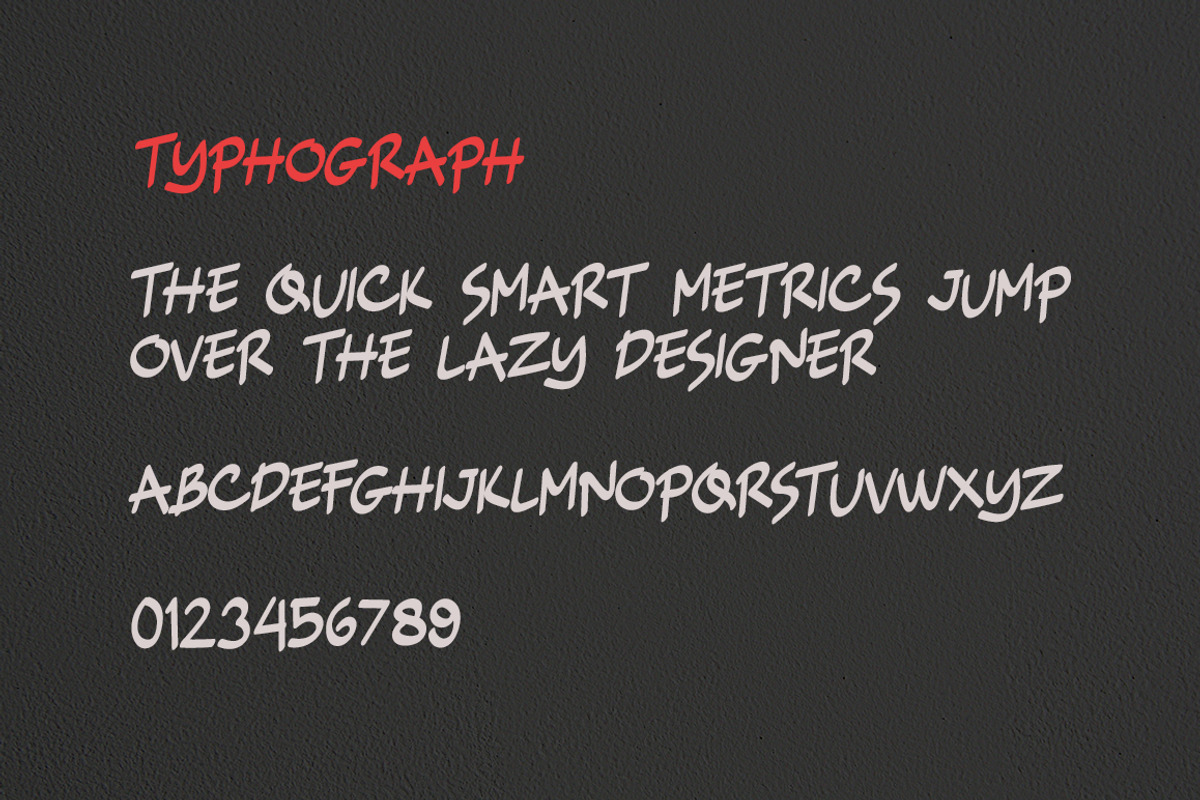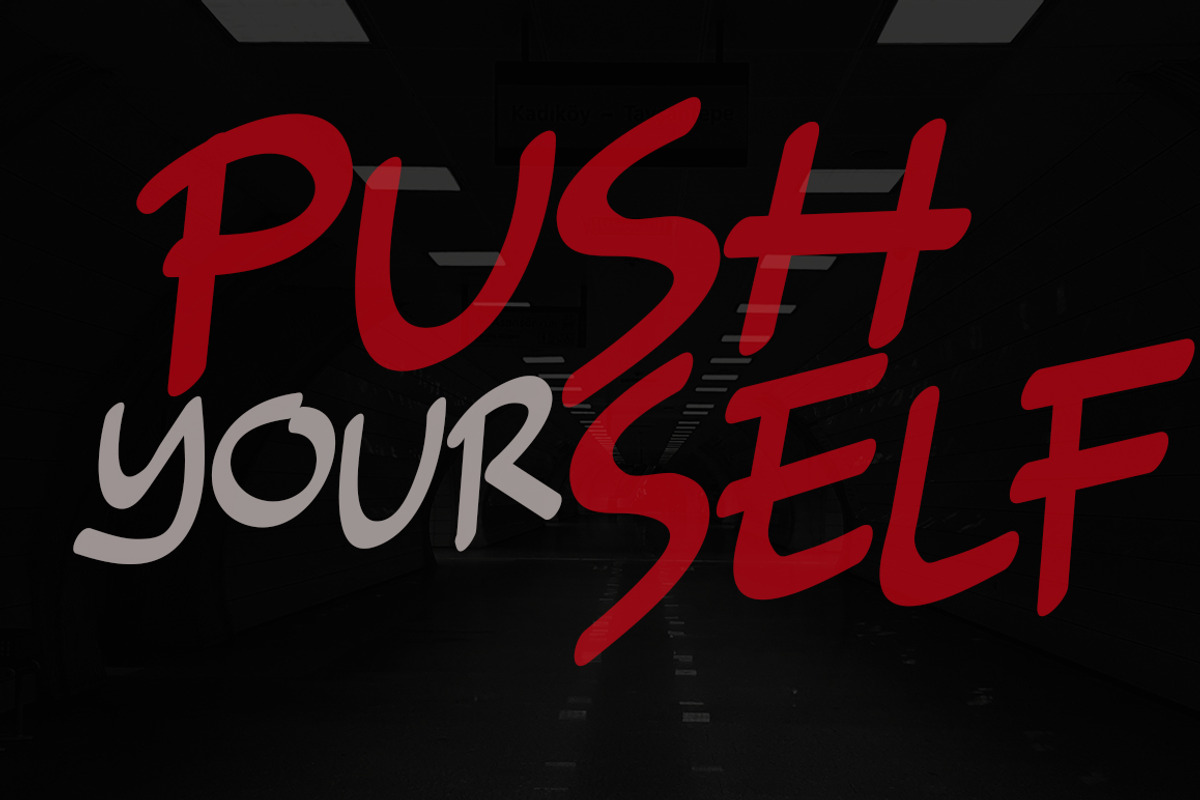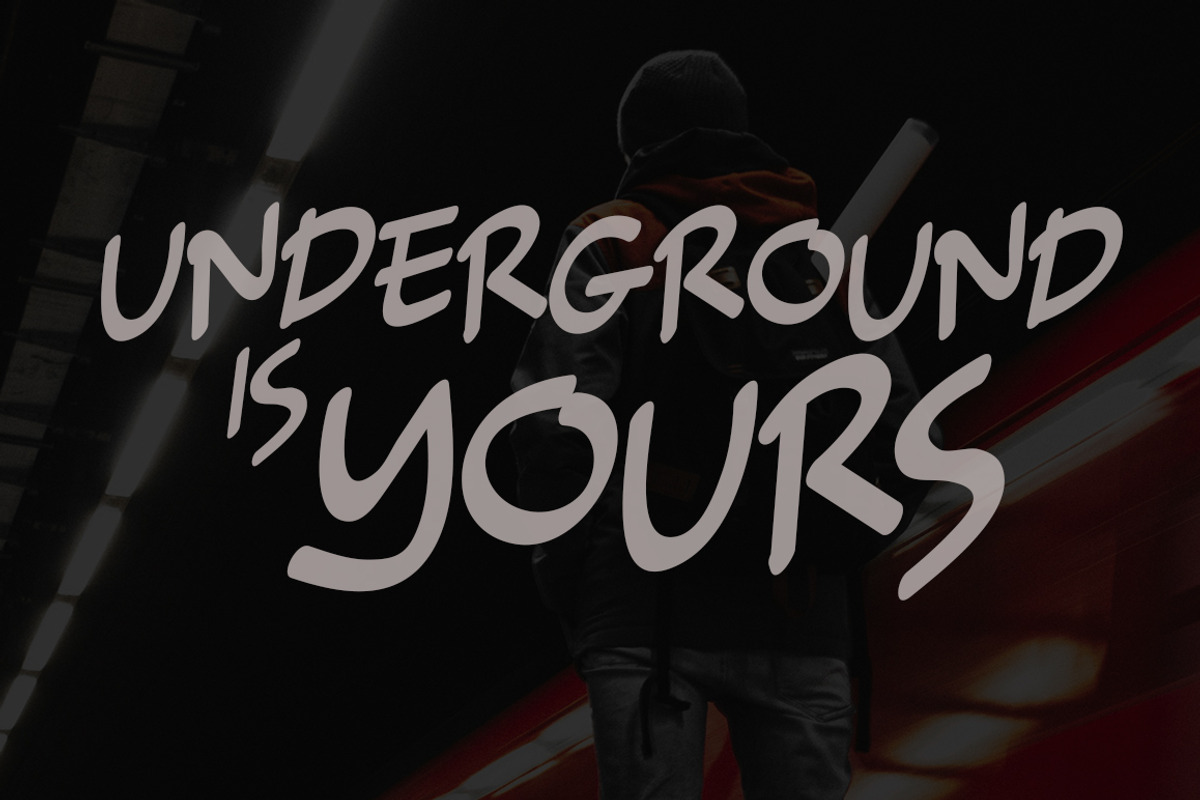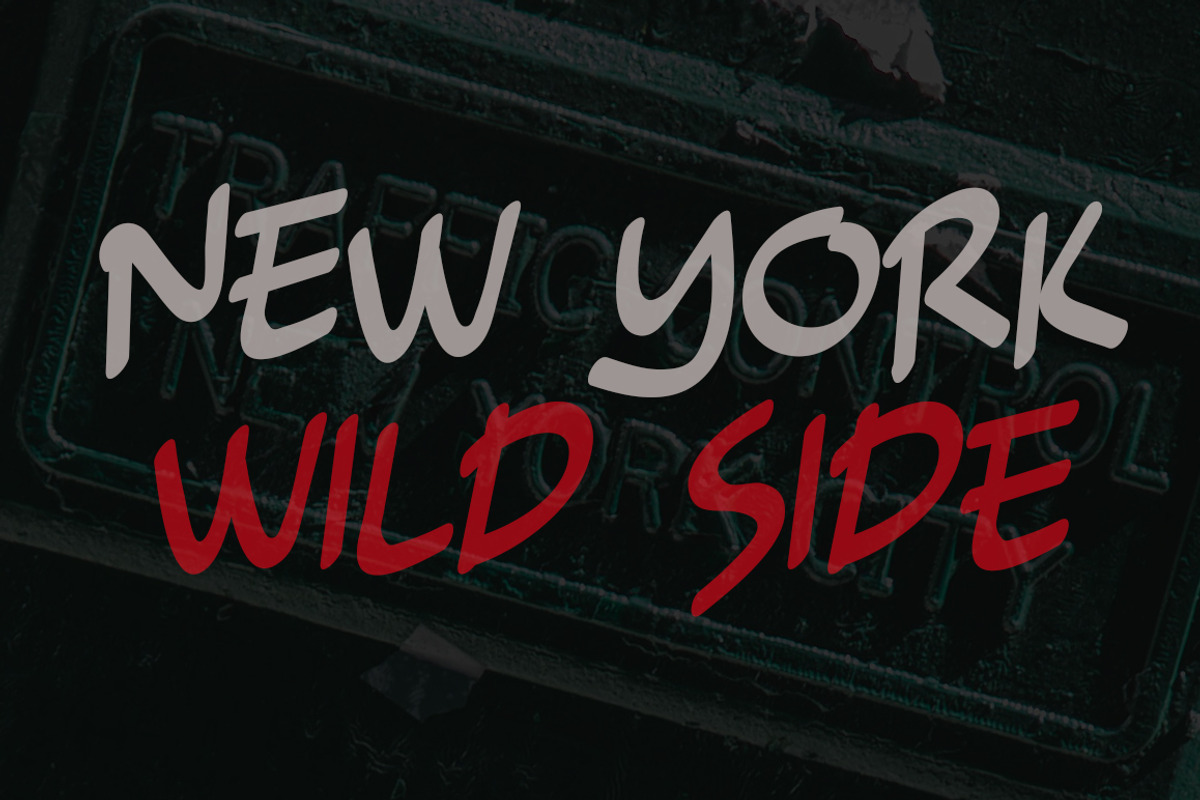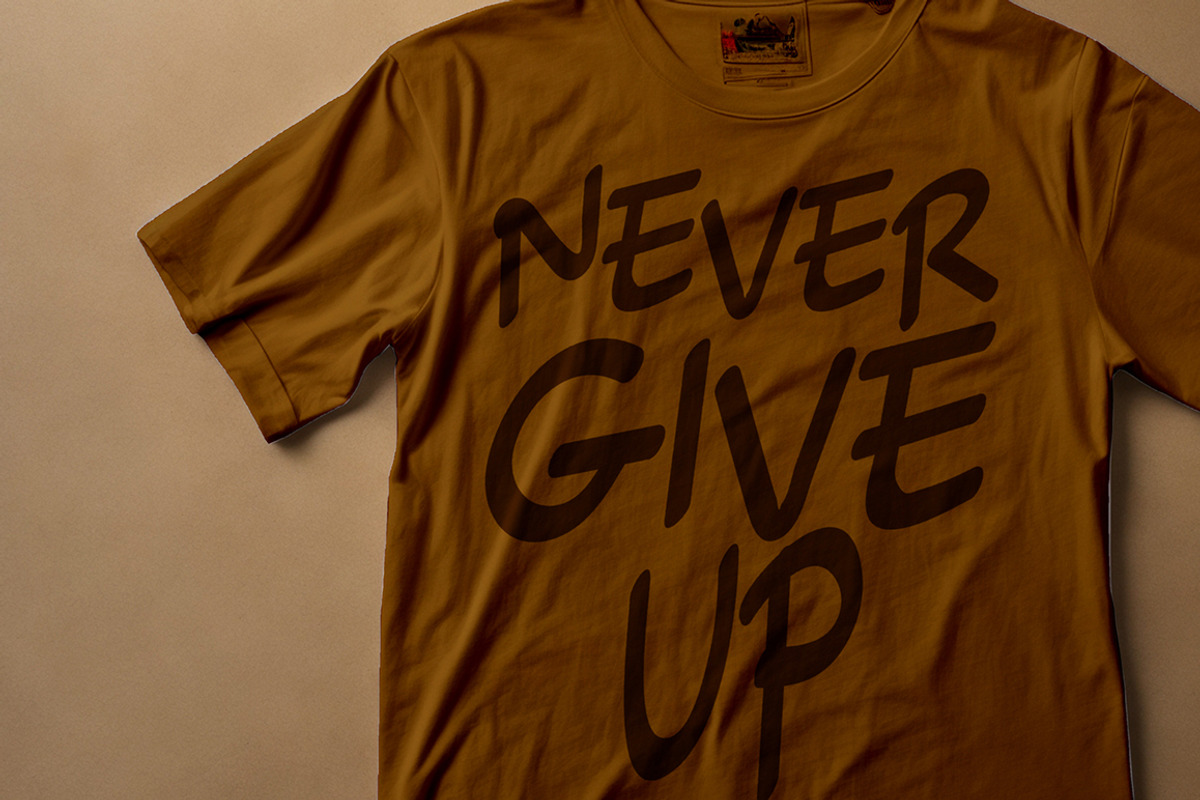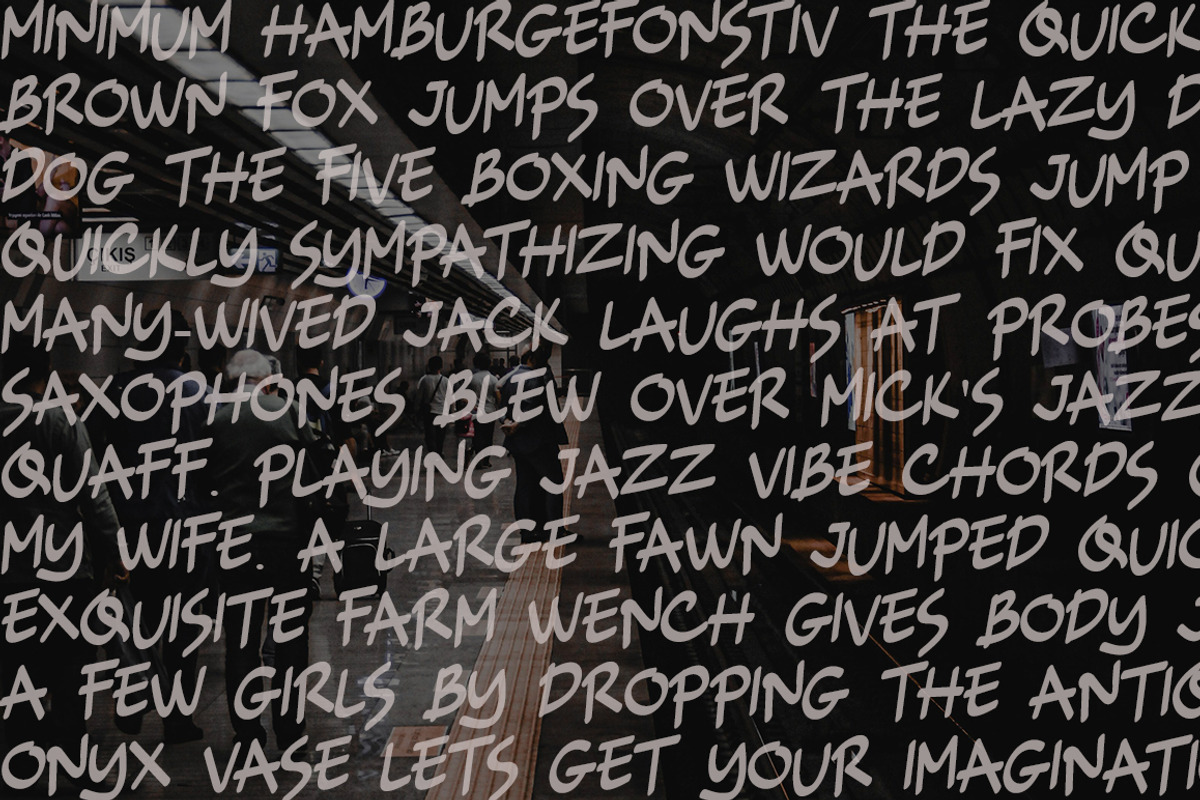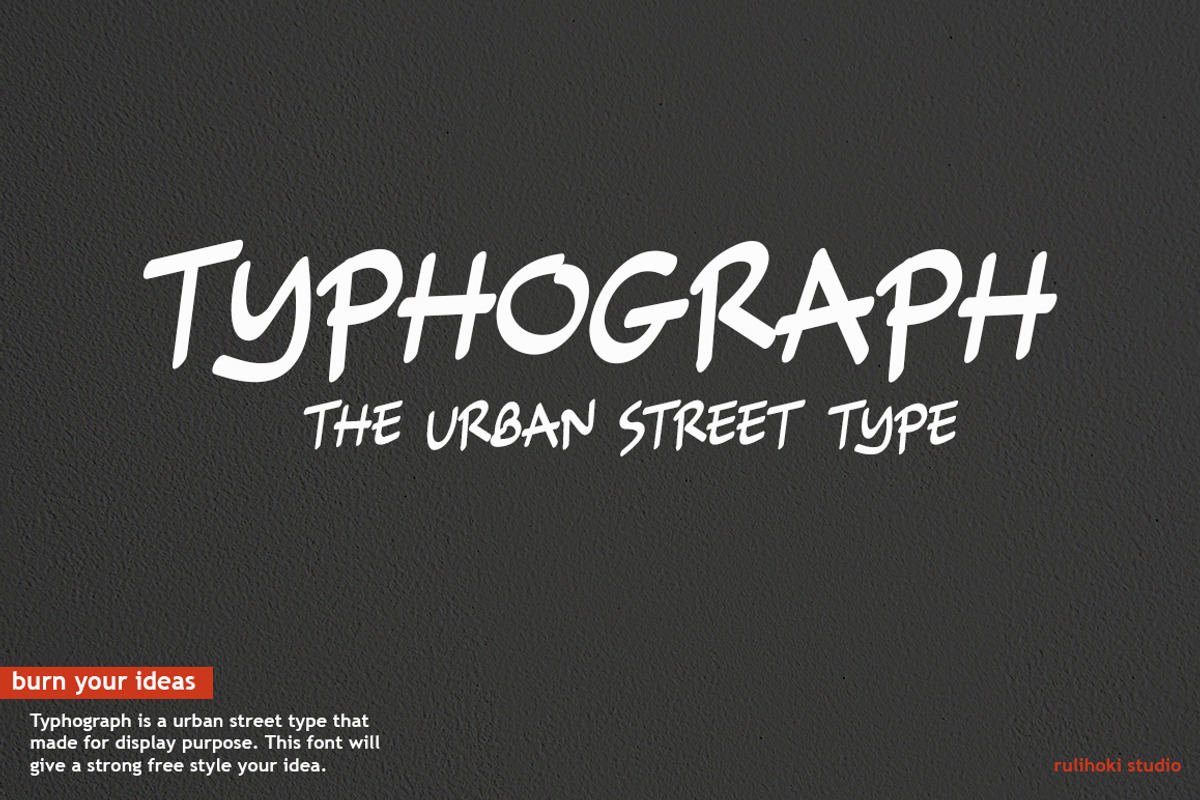
Typhograph
Typhograph is a urban street type style that made for display purpose. This font will give a strong freestyle your idea. Lets bur your imagination with this font.
- Only Bold Font Display A-Z and number.